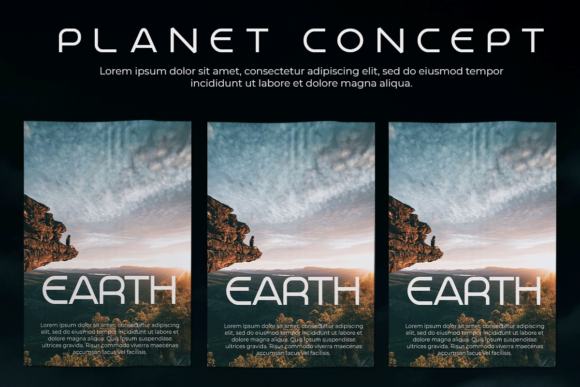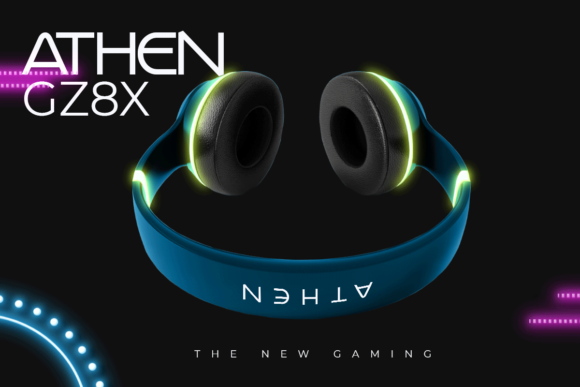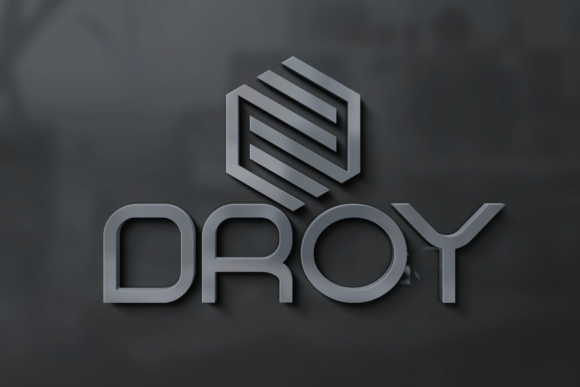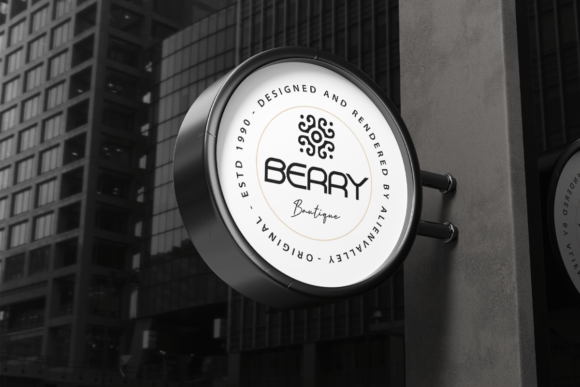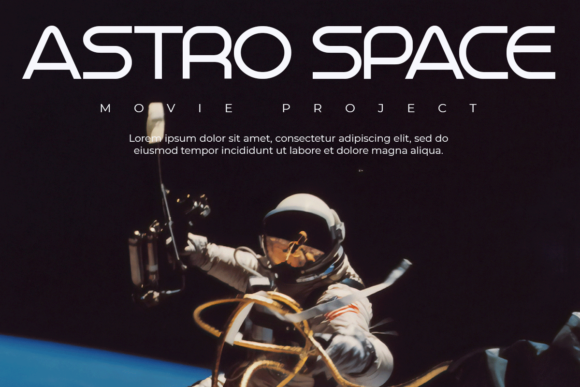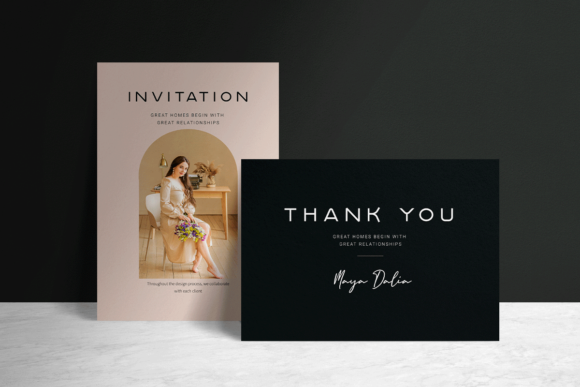
Discover the Magic of Broyce Font: Elevate Your Designs
Have you ever found yourself staring at a blank canvas, struggling to bring your creative vision to life? That’s where the perfect font can make all the difference. It’s the spark that ignites your imagination, propelling your project from ordinary to extraordinary.
Enter the Broyce Font, a sleek and modern display font designed to make your creations stand out. This adaptable font is perfect for designers looking to add a touch of sophistication and elegance to their work. Whether you’re crafting a logo, heading, or title, Broyce Font is sure to elevate your design and leave a lasting impression.
What sets Broyce Font apart is its versatility and ease of use. Its clean lines and modern aesthetic make it an excellent choice for a wide range of projects, from digital graphics to print materials. By incorporating the Broyce Font into your designs, you’ll be able to create visually stunning pieces that captivate your audience and leave a lasting impact.
Broyce Font Key Features
- Font Family: Broyce Font is a sans-serif typeface designed for clear readability and modern aesthetic.
- Character Count: Broyce Font includes a wide range of characters, including uppercase and lowercase letters, numbers, punctuation marks, and special characters.
- Unique Characteristics: Broyce Font features a clean and minimalist design, with a subtle rounded edge on the letters, giving it a friendly and approachable feel.
Broyce Font Review
The Broyce Font is a modern, elegant sans-serif typeface designed to evoke a sense of sophistication and professionalism. Overall, I’m quite impressed with its clean lines, open spaces, and well-balanced letterforms. ✨
- Its sleek, modern aesthetic makes it perfect for tech, finance, and corporate branding.
- The font is highly legible, even at smaller font sizes.
- It comes in a range of weights, from light to bold, making it versatile for various design applications.
- Great for body text, headings, and even display typography.
- ⚠️ The font may feel a bit generic for certain designs, lacking the unique character some designers crave.
- ⚠️ Some users may find the font too plain or boring, particularly for more creative or artistic projects.
- ⚠️ Not ideal for designs that require a lot of emphasis or visual impact, as it can feel too understated.
Overall, I’d give the Broyce Font 4 out of 5 stars. It’s a solid, dependable choice for many design applications, but may not be the best fit for more avant-garde or experimental projects. If you’re looking for a clean, professional typeface that gets the job done, Broyce is a great option to consider.
Broyce Font is ideal for:
- Marketing materials (e.g., social media, flyers, brochures)
For optimal results, use Broyce Font in combination with bold, sans-serif fonts to create a clean and modern look.